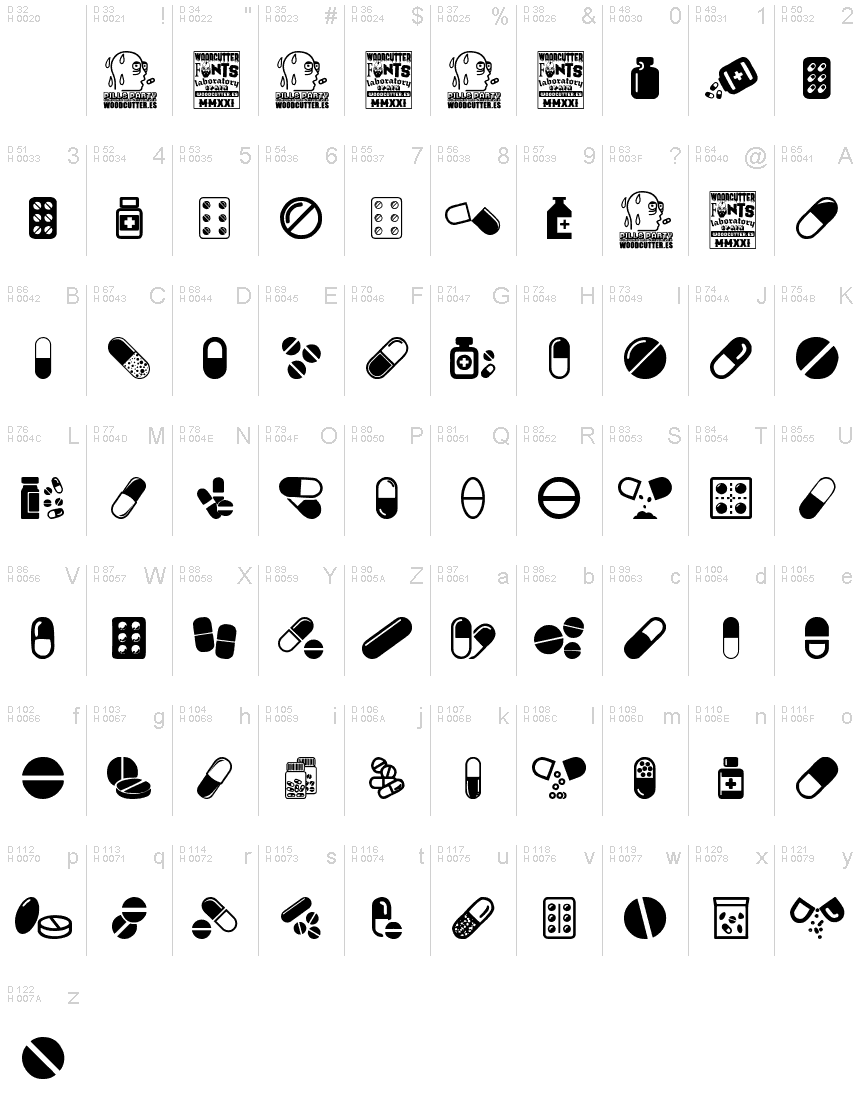
Pills Party
Pills Party by Woodcutter Manero is a unique dingbats font featuring pills, vitamins, and other medical-inspired shapes. It's perfect for creating logos, labels, posters, and other design projects that need a creative touch.